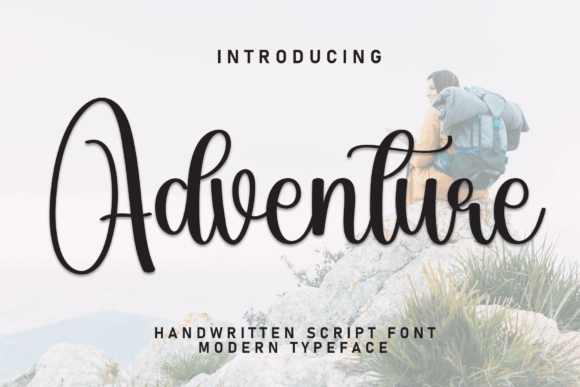
Introducing Adventure Font: The Sweet and Delicate Handwritten Font for Romantic Designs
Are you a designer or crafter looking for a font that can add a touch of romance and personality to your designs? Look no further than Adventure Font, a sweet and delicate handwritten font that’s perfect for creating beautiful wedding invitations, cards, and other designs that require a personal touch.
What is Adventure Font?
Adventure Font is a dainty and joyful handwritten font that’s designed to bring a sense of whimsy and romance to your designs. With its delicate strokes and elegant curves, this font is ideal for creating beautiful and feminine designs that will capture the hearts of your audience.
Characteristics of Adventure Font
So, what makes Adventure Font so special? Here are some of its key characteristics:
- Sweet and delicate: Adventure Font is a sweet and delicate font that’s perfect for creating romantic and feminine designs.
- Handwritten: This font has a beautiful handwritten feel that’s perfect for adding a personal touch to your designs.
- Dainty and joyful: Adventure Font is a dainty and joyful font that’s sure to bring a smile to your audience’s faces.
- Romantic: With its elegant curves and delicate strokes, Adventure Font is the perfect choice for creating romantic designs.
Uses for Adventure Font
So, what can you use Adventure Font for? Here are some ideas to get you started:
- Wedding invitations: Adventure Font is perfect for creating beautiful and romantic wedding invitations that will set the tone for the big day.
- Cards: Whether you’re creating birthday cards, anniversary cards, or get-well cards, Adventure Font is a great choice for adding a personal touch.
- Stationery: Use Adventure Font to create beautiful stationery sets that include notecards, journals, and other paper goods.
- Branding: Adventure Font can also be used for branding and packaging design, especially for businesses that want to convey a sense of romance and whimsy.
Why Choose Adventure Font?
So, why should you choose Adventure Font for your next design project? Here are just a few reasons:
- Unique and eye-catching: Adventure Font is a unique and eye-catching font that’s sure to stand out from the crowd.
- Easy to read: Despite its delicate nature, Adventure Font is easy to read and understand, making it perfect for body text and headlines.
- Versatile: Adventure Font can be used for a wide range of design projects, from wedding invitations to branding and packaging design.
- High-quality: Adventure Font is a high-quality font that’s designed to deliver exceptional results, even at small sizes.
Tips for Using Adventure Font
Here are a few tips for using Adventure Font in your designs:
- Pair it with bold fonts: Adventure Font pairs beautifully with bold fonts, which can help to create a nice contrast and add visual interest to your designs.
- Use it for headlines and body text: Adventure Font is suitable for both headlines and body text, making it a versatile choice for a wide range of design projects.
- Experiment with colors: Adventure Font looks beautiful in a range of colors, from soft pastels to rich jewel tones. Experiment with different colors to find the perfect look for your design.
Adventure Font is a beautiful and delicate handwritten font that’s perfect for creating romantic and feminine designs. With its sweet and dainty strokes, this font is ideal for wedding invitations, cards, stationery, and other designs that require a personal touch. Whether you’re a designer or crafter, Adventure Font is a great choice for adding a touch of whimsy and romance to your designs.